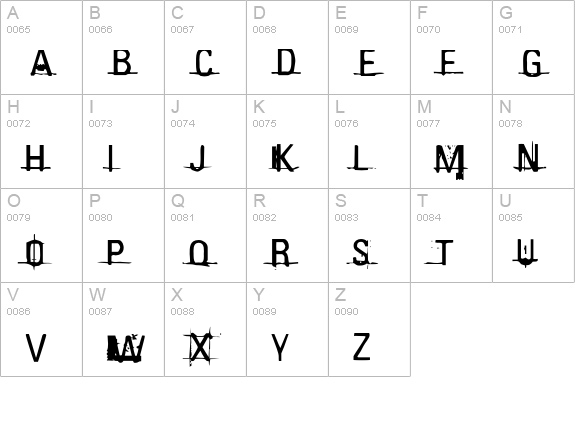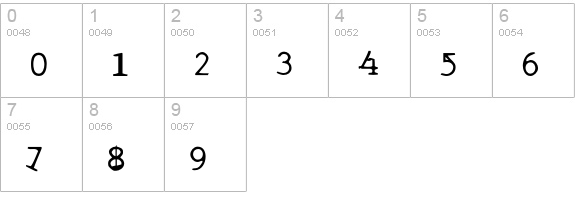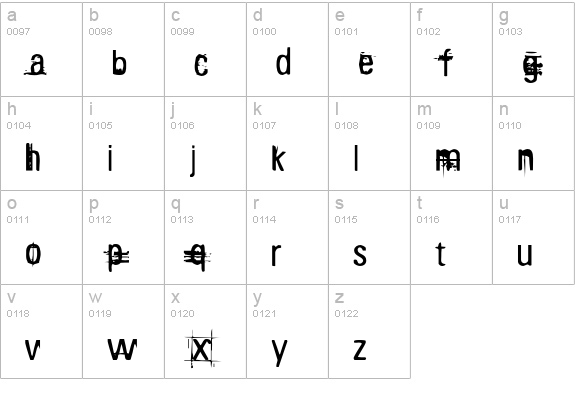
KO-dirty Font Details
KO-dirty font is a bold and edgy typeface that exudes a raw and gritty vibe. With its rugged appearance and distressed textures, this font is perfect for adding a touch of urban flair to your designs. The uneven lines and rough edges give KO-dirty font a unique and rebellious look that will make your text stand out. Whether you're creating posters, album covers, or logo designs, this font is sure to make a bold statement. Best of all, KO-dirty font is available for free download at FontsMarket.com. So you can easily add this eye-catching font to your collection without any cost. Don't miss out on the opportunity to enhance your projects with the distinctive style of KO-dirty font!